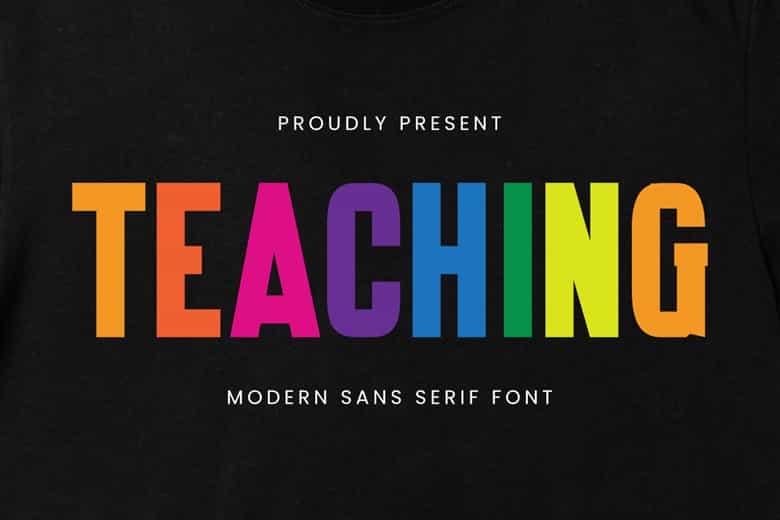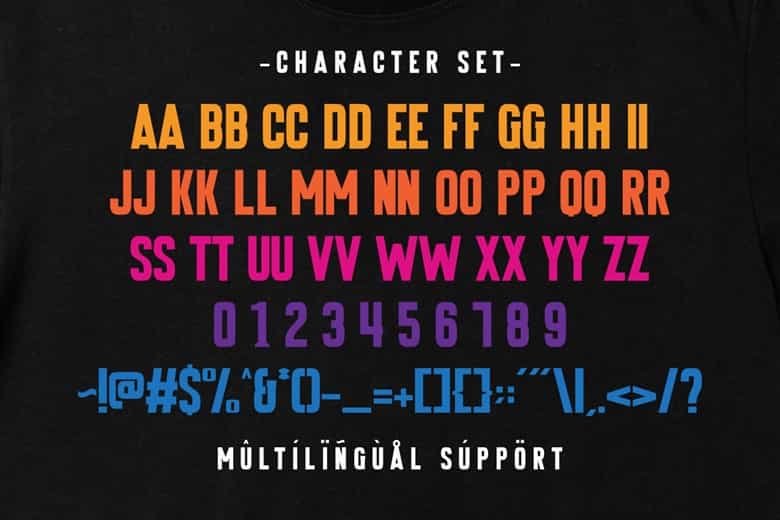
Teaching is an aggressive and youthful san serif type that is used to give power and briskness in your academic and creative designs. In sharp edges and powerful profile, this font is ideal in Print On Demand designers, sublimation jacket designers, Cricut crafters and makers wishing to make a colorful declaration- particularly of school related items.